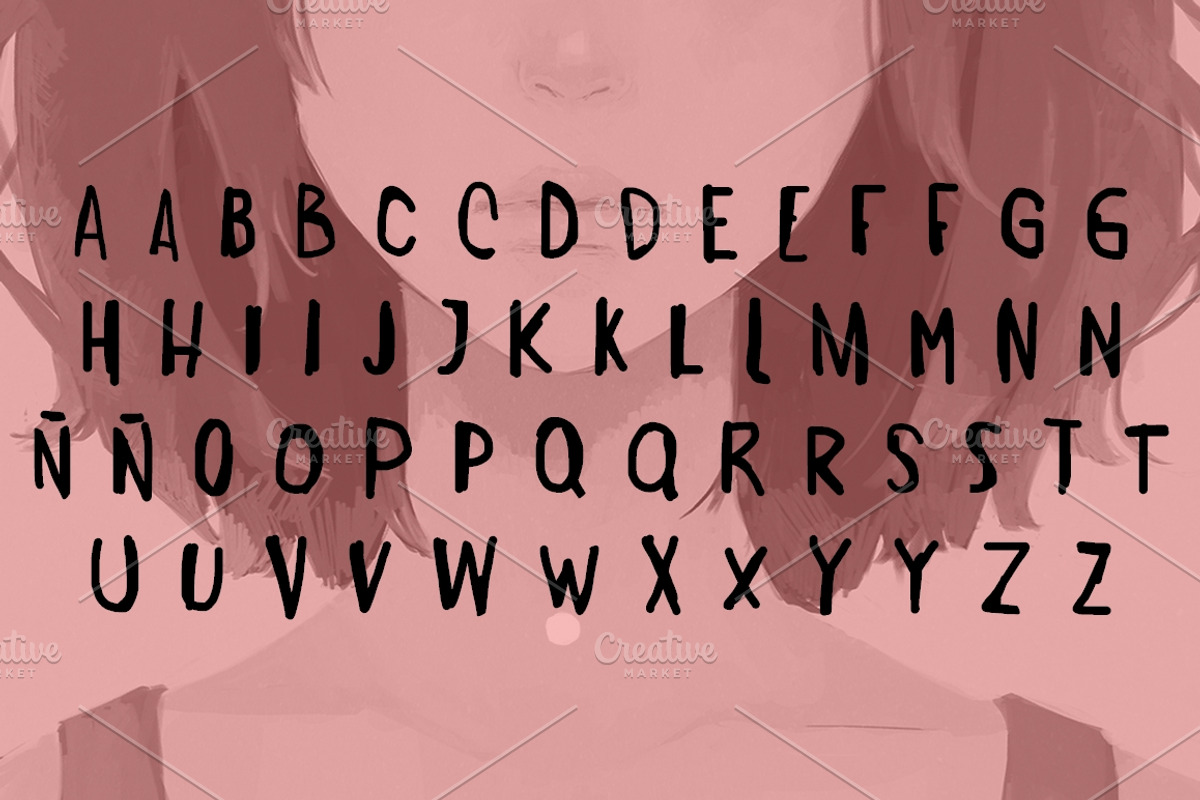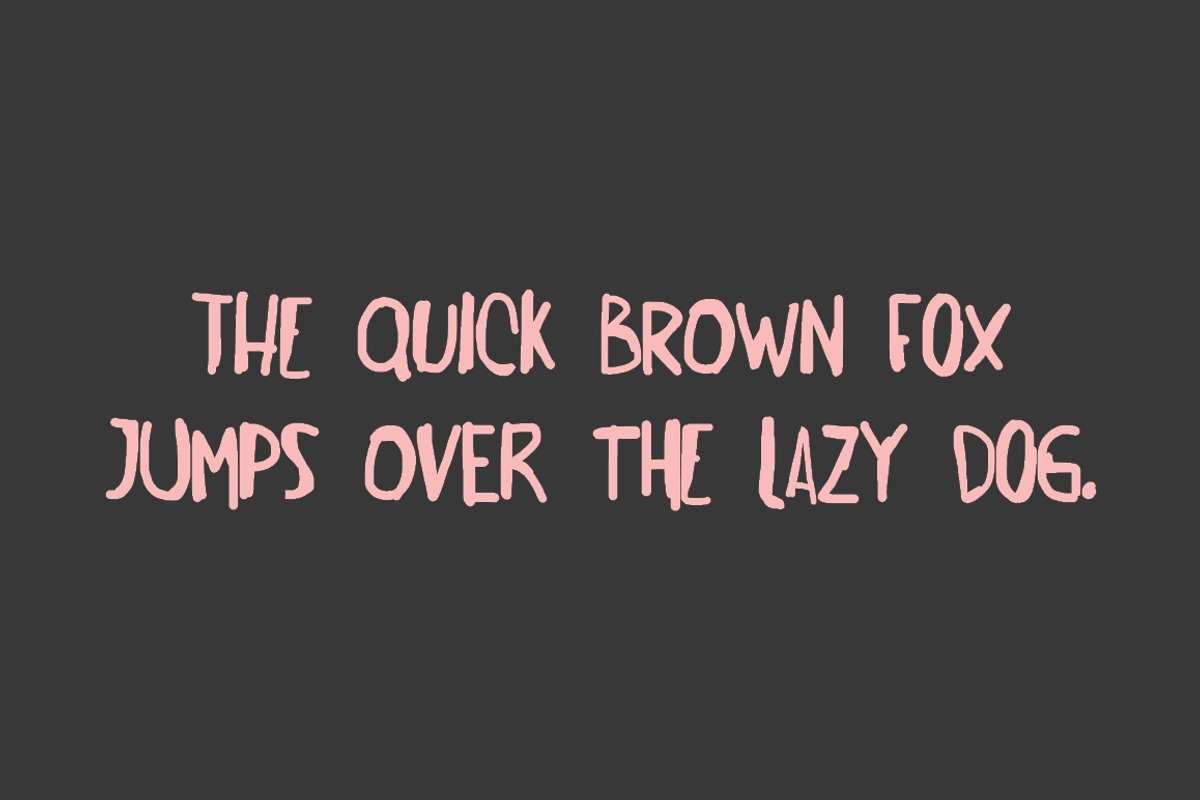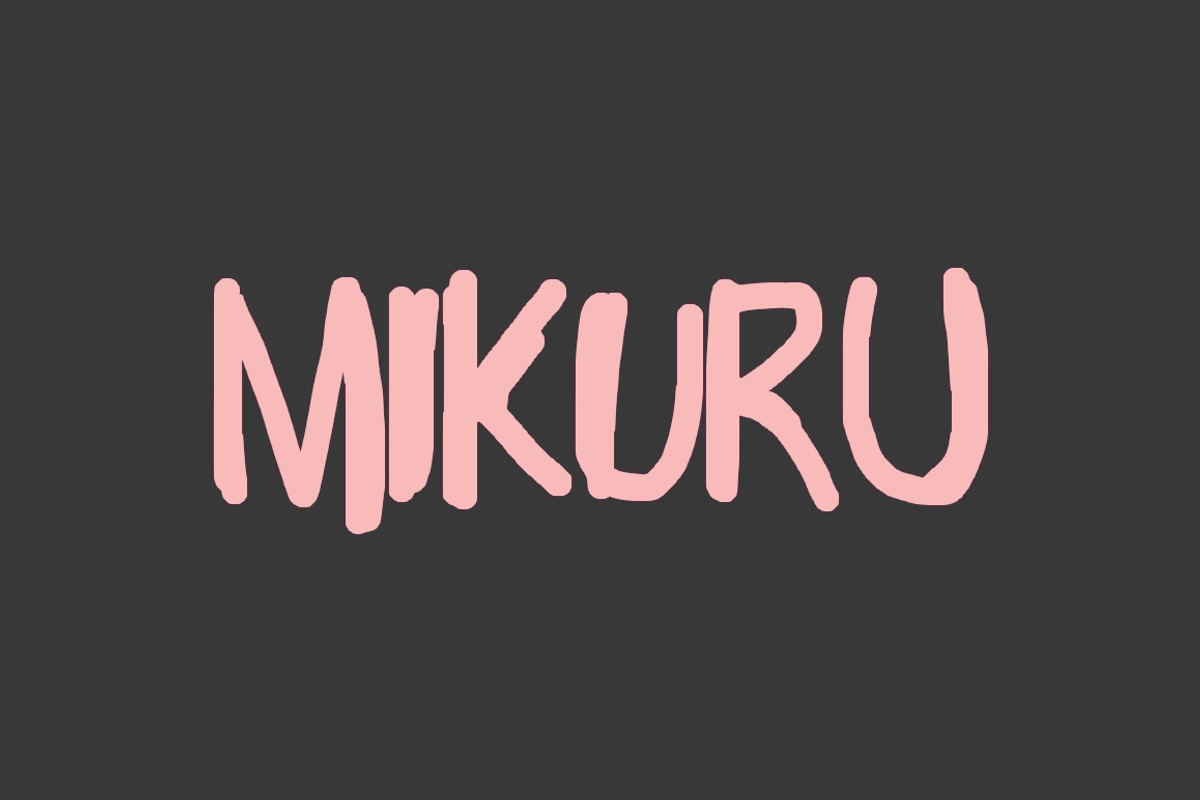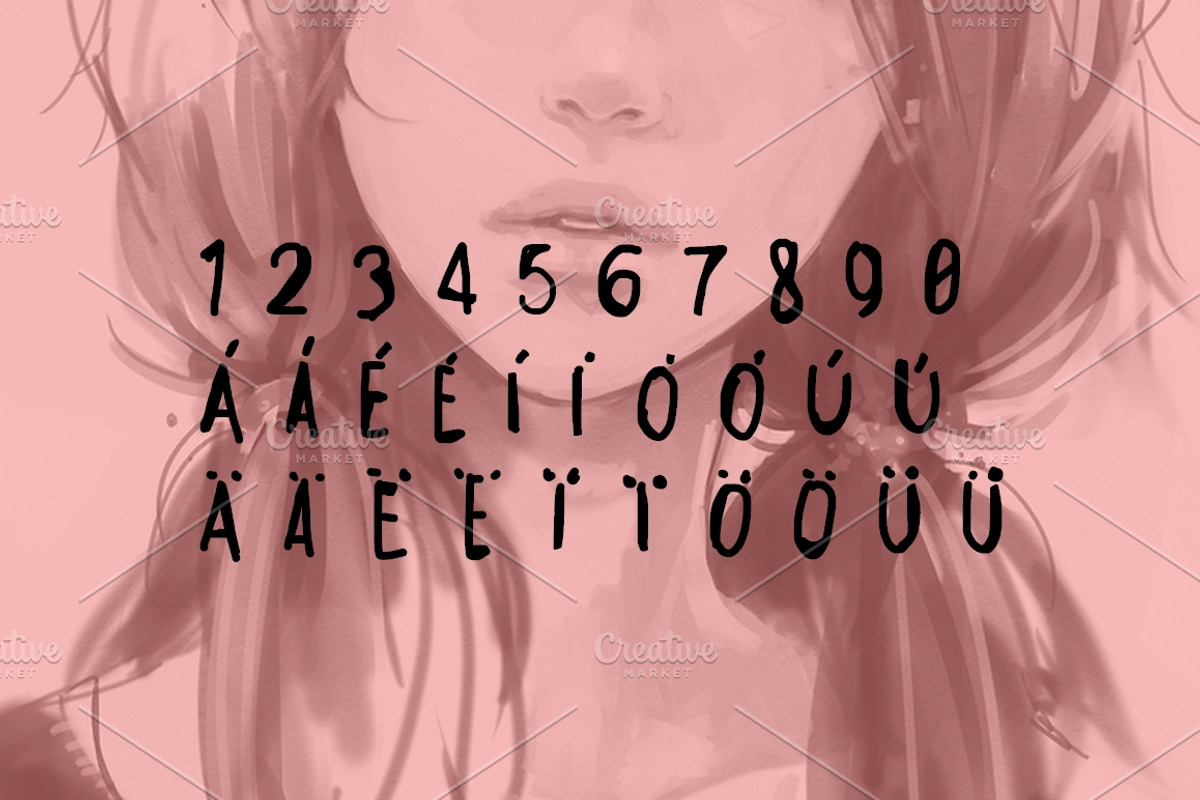
Mikuru Font
Chizuru - a cute manga inspired font, custom and kawaii. Made with love.
Spanish and english language perfectly supported. For any questions, comments, problems or a coffee please contact me.